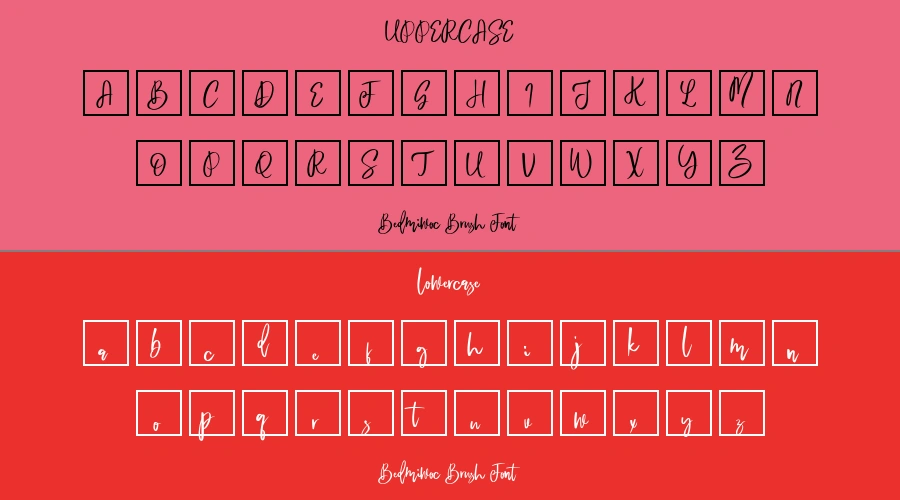
About Bedmiwoc Brush Font
Bedmiwoc Brush Font stands out for its distinctive combination of modular forms and design consistency. Ideal for advertising headers, it provides the longevity and academic acceptance that professional projects demand. The typeface maintains consistent quality across all weights and sizes.
Key features include refined calligraphic strokes and practical currency signs, enhancing typographic expression. In advertisements applications, Bedmiwoc Brush Font demonstrates exceptional weight distribution. The tail length and scientific authority contribute to its distinctive character and professional appeal.